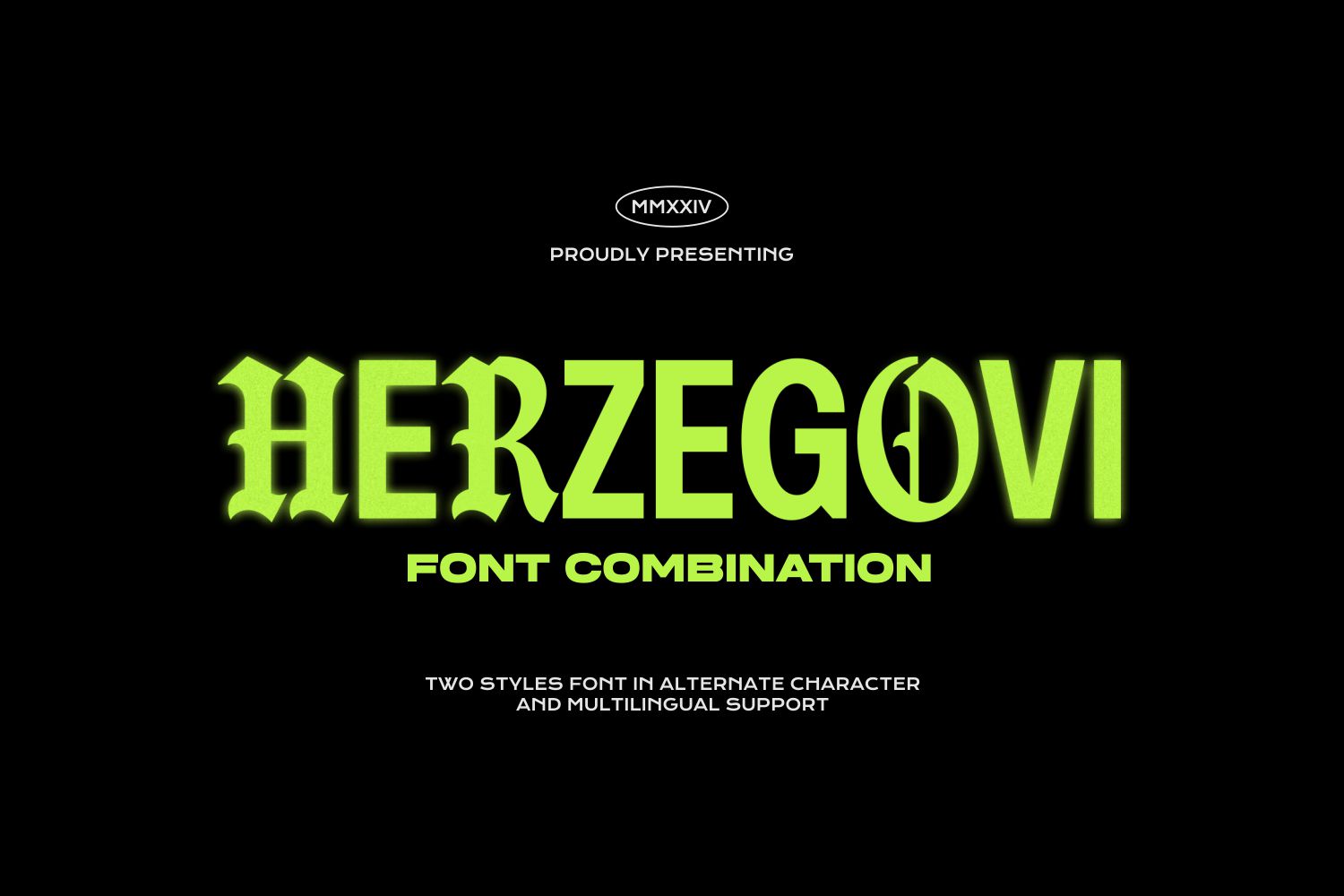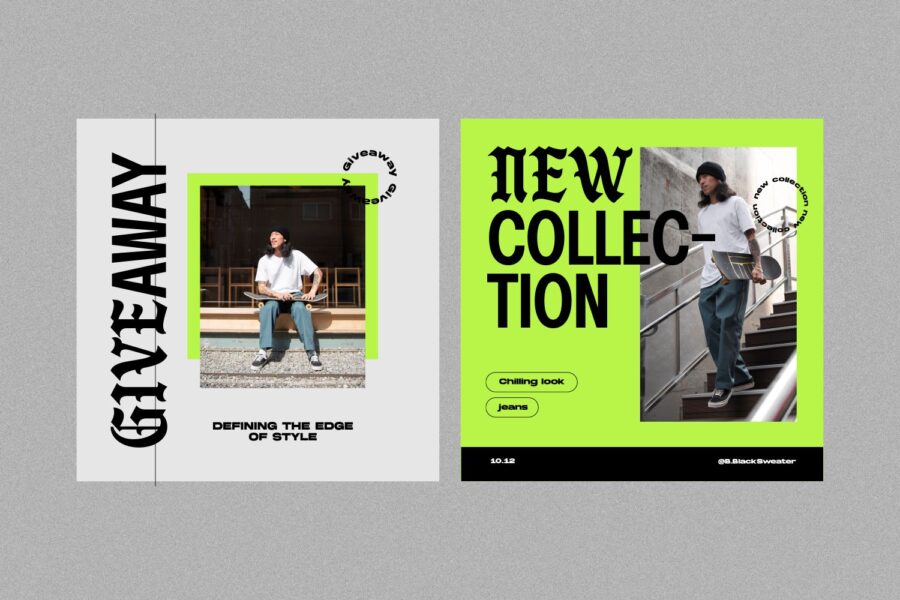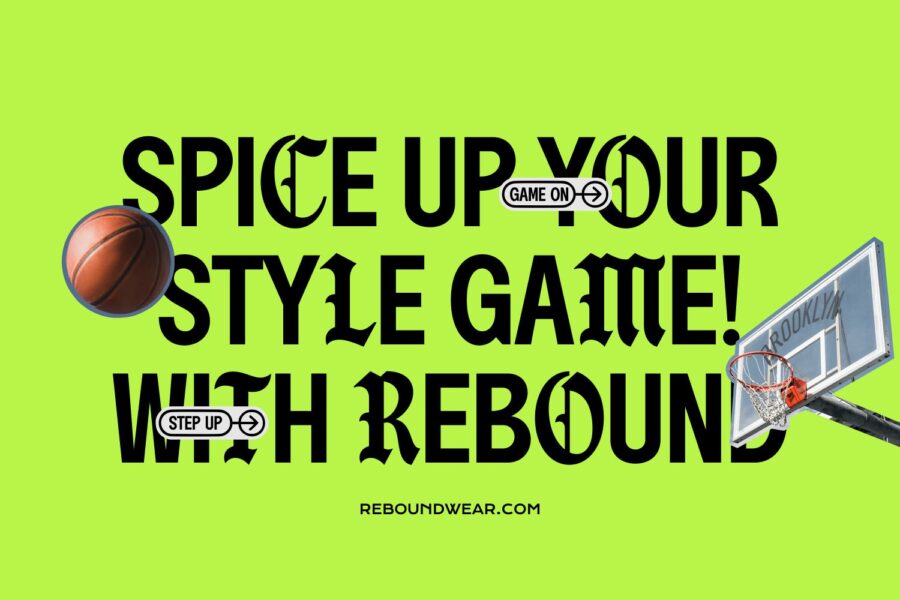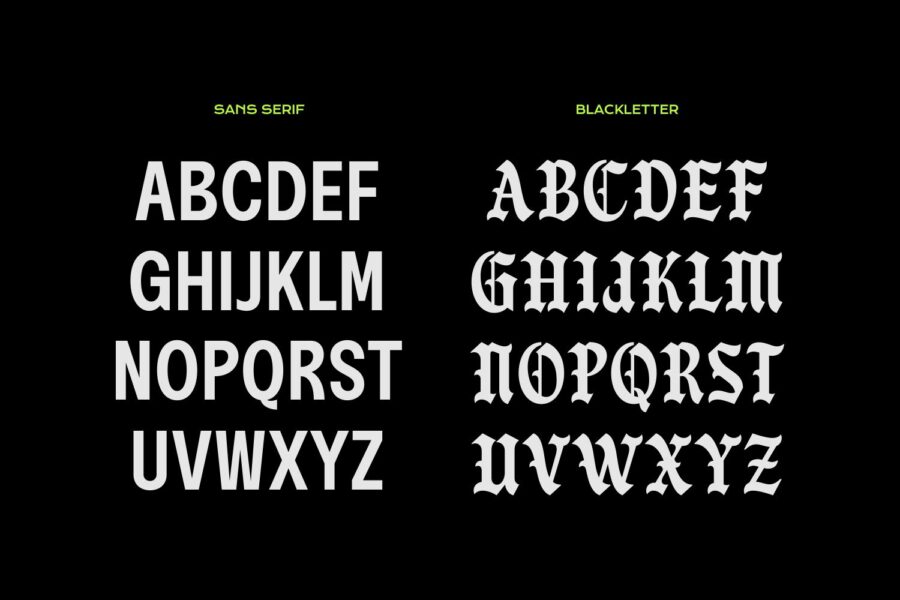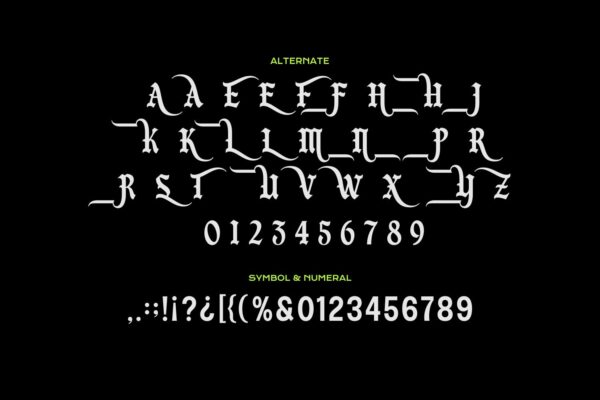
Herzegovi
Herzegovi is a bold and dynamic font combination that merges the timeless elegance of blackletter with the clean precision of sans serif. Designed for impactful headlines, branding, and streetwear aesthetics, Herzegovi delivers a striking contrast that commands attention. Its blackletter style evokes tradition and strength, while the sans serif counterpart adds a modern, versatile edge, making it perfect for contemporary designs that want to stand out.
With alternate characters, stylistic sets, and multilingual support, Herzegovi offers endless creative possibilities. Whether for apparel design, editorial layouts, music posters, or sports branding, this typeface ensures a unique visual identity that blends heritage with modern flair. Its bold shapes, sharp details, and distinctive letterforms make every design unforgettable.
Herzegovi